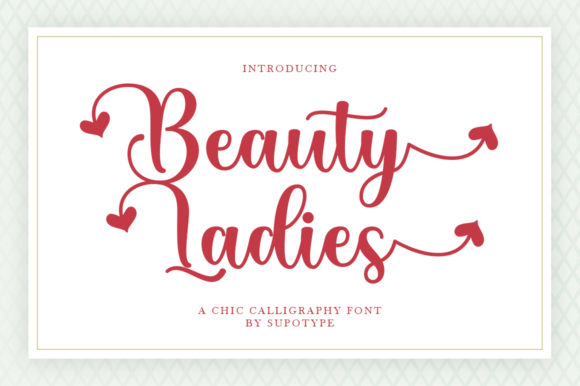
In a world where self-expression reigns supreme, embrace the allure of Beauty Ladies Font, a captivating creation that will transform your artistic endeavors into masterpieces. With its alluring script style, Beauty Ladies beckons you to unleash your creativity and leave an indelible mark on the world.
Immerse yourself in the world of Beauty Ladies, where every letter dances with grace and elegance. Inspired by the allure of handwritten notes, this font exudes a charm that is both timeless and utterly captivating. Its round and sweet characters possess an undeniable allure, inviting you to craft designs that speak to the heart.
Picture your words taking flight, adorned with the delicate strokes of Beauty Ladies. Whether it's a heartfelt message to a loved one, a thought-provoking quote, or a captivating story, Beauty Ladies elevates your words, transforming them into visual poetry.
With Beauty Ladies, you'll elevate your creative projects to new heights. Its versatility knows no bounds, whether you're crafting stunning posters that captivate the eye, alluring flyers that command attention, or enchanting prints that leave a lasting impression.
Unlock the full potential of Beauty Ladies with its PUA encoding, granting you effortless access to a treasure trove of glyphs and swashes. Unleash your imagination and explore a world of endless creative possibilities, where every design becomes a testament to your artistic prowess.
Don't let this opportunity pass you by. Embark on a creative journey with Beauty Ladies Font, and let your designs bloom with beauty, elegance, and a touch of heartfelt charm.